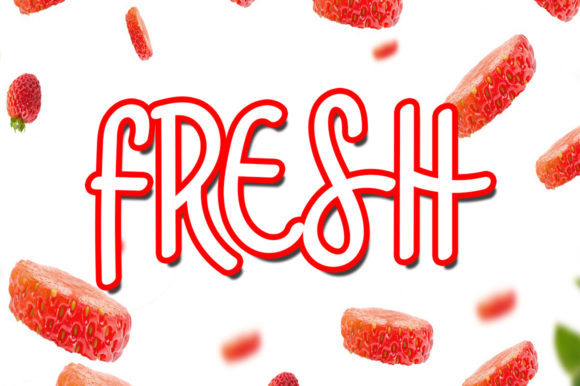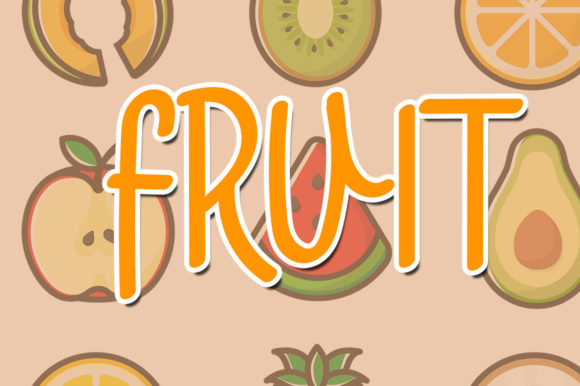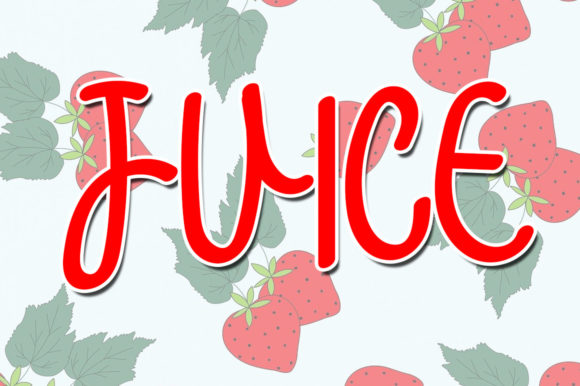
Strawberry Font
About Strawberry Font
Strawberry is a jolly and fun script font. It embodies playfulness and authenticity, and it will definitely elevate the look of any creative idea!